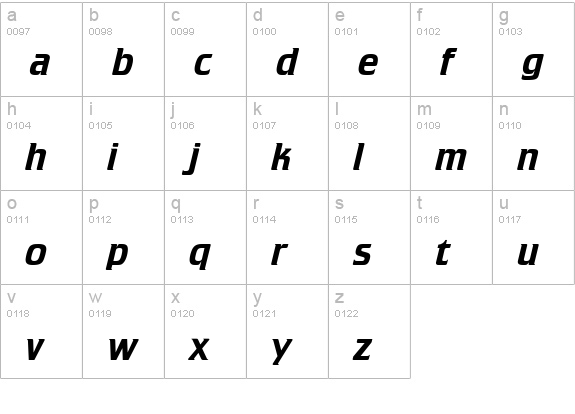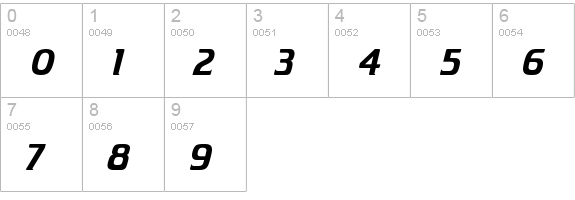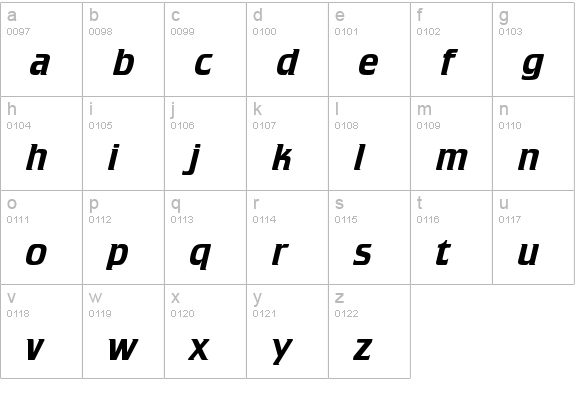
Crillee Italic Plain Font Details
Crillee Italic Plain is a distinctive, italic variant in the Crillee typeface family \xE2\x80\x94 well suited to design and typography projects.
Crillee Italic Plain font is a beautiful and elegant typeface that exudes sophistication and style. Its slanted design adds a sense of dynamism and flair to any text, making it perfect for projects that require a touch of finesse. The delicate curves and graceful lines of Crillee Italic Plain font create a sense of movement and flow, enhancing the overall visual appeal of any design. What sets Crillee Italic Plain font apart is its versatility - it can be used for a wide range of projects, from formal invitations to modern branding materials. Its clean and clear letterforms ensure excellent readability, while its italicized style adds a hint of creativity and uniqueness. Best of all, Crillee Italic Plain font is available for free download at FontsMarket.com. Whether you're a designer looking to elevate your projects or a creative individual seeking a stylish typeface for personal use, Crillee Italic Plain font is the perfect choice. Download it today and add a touch of sophistication to your designs!